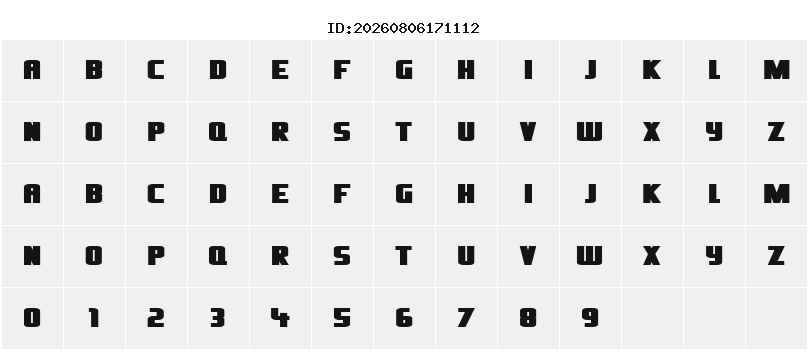
Oliver'sBarney Preview
• Font Name: Oliver'sBarney
• Font ID: Macromedia Fontographer 4.1 Oliver'sBarney
• Full Font Name: Oliver'sBarney
• Version: Macromedia Fontographer 4.1 10/27/97
• PostScript Name: OliversBarney
• Character Count: 205
About Oliver'sBarney.ttf
Oliver'sBarney.ttf is a modern, elegant sans-serif font designed for ultimate readability and visual harmony. Perfect for branding, headlines, web design, and print materials.